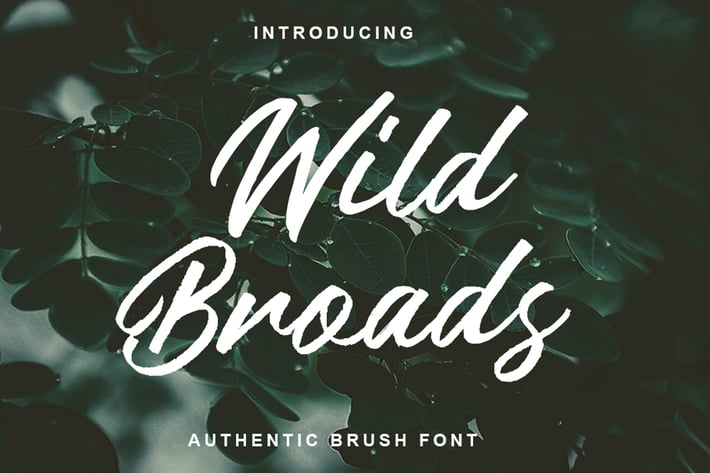
Wild Broads - Authentic Brush Font
Introducing of our new product the name is Wild Broads font. inspired by signature and stylish handwriting, Wild Broads font is good for logotype, wedding invitation design, badge, headline, signature, packaging and any more. Wild Broads font include Mutilingual Support